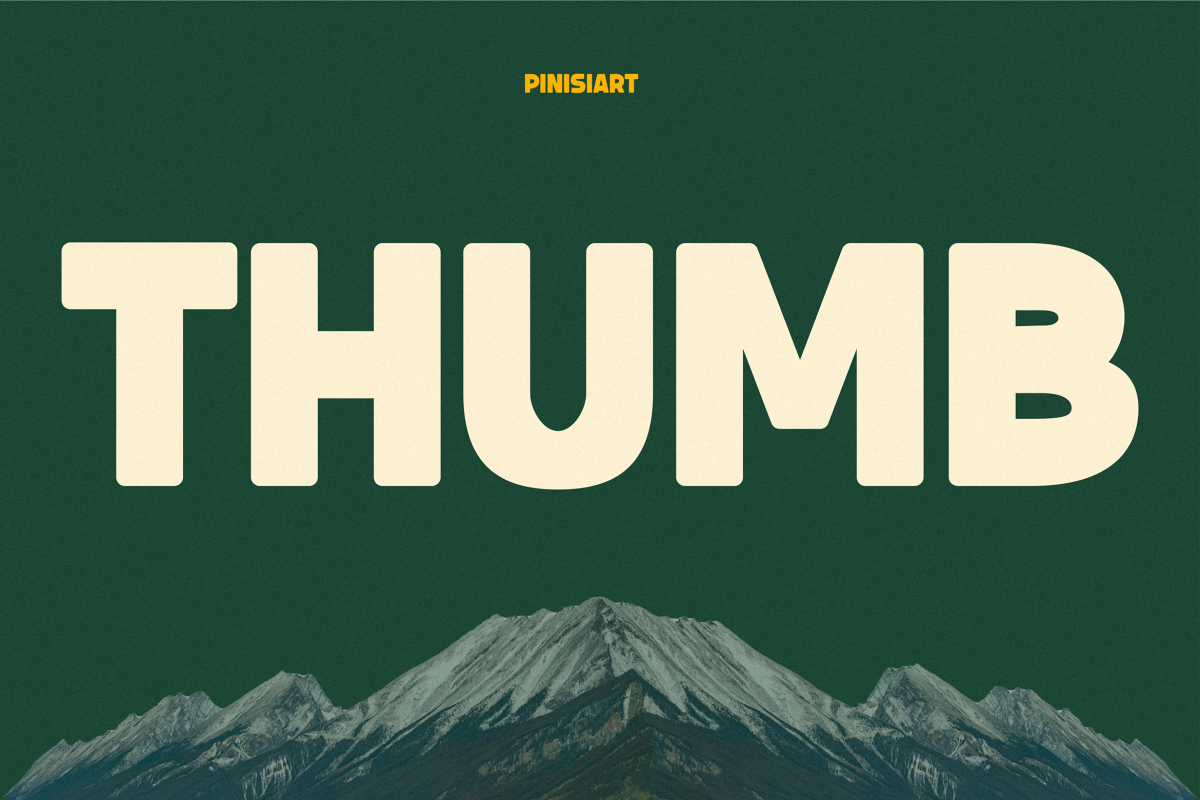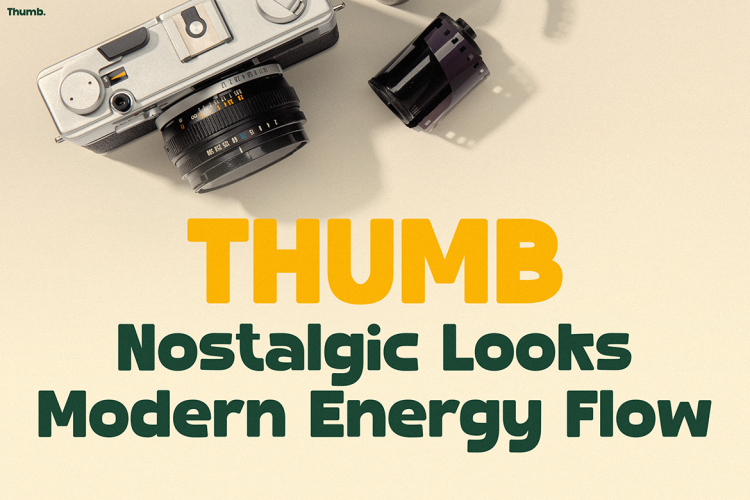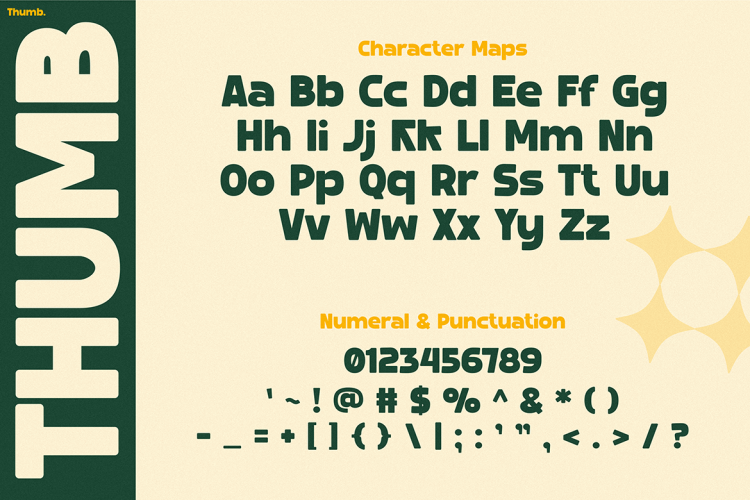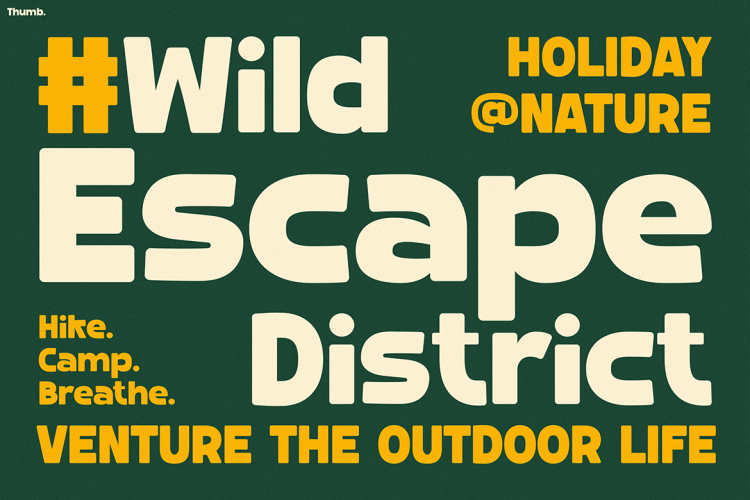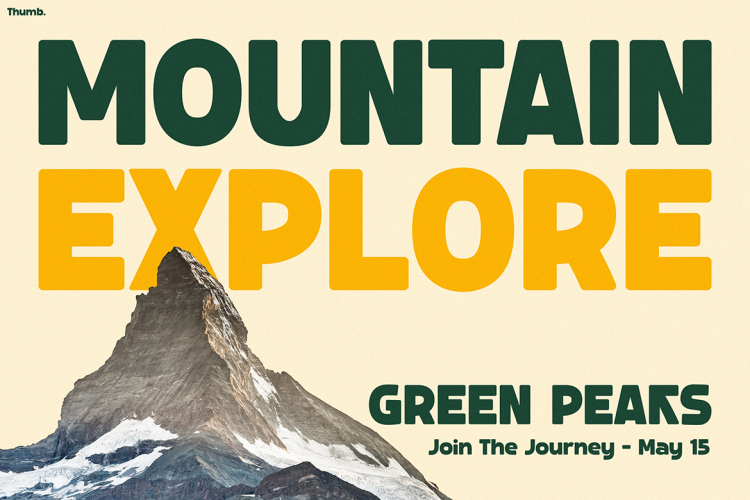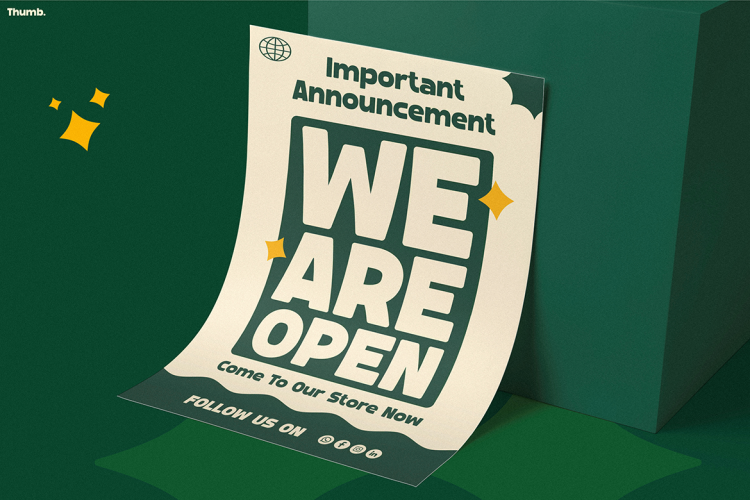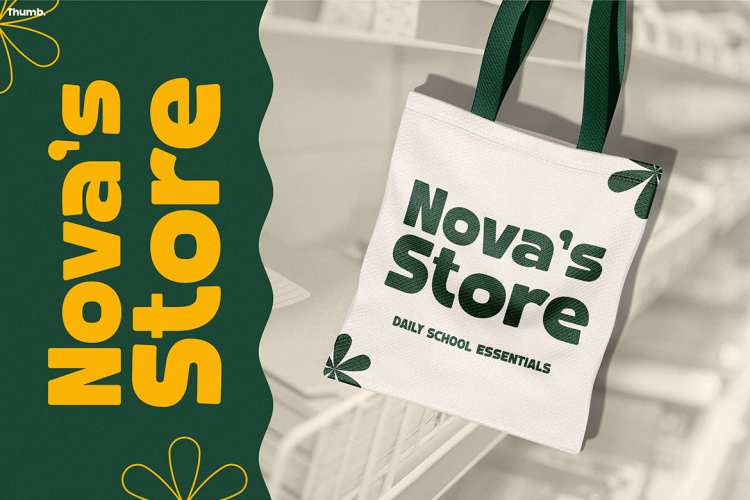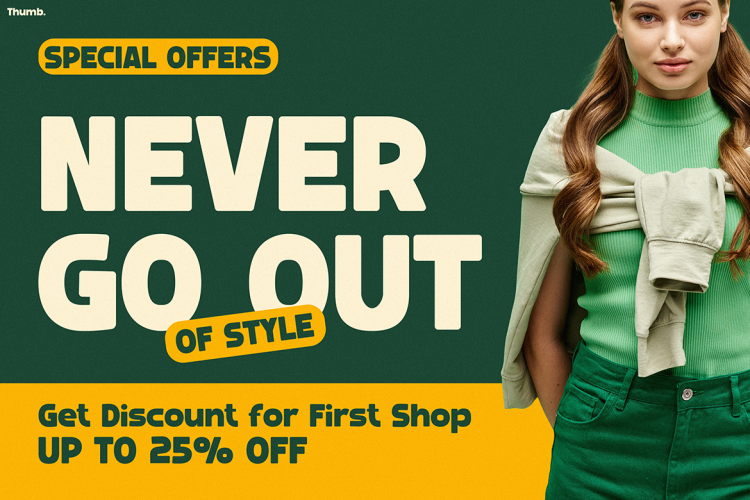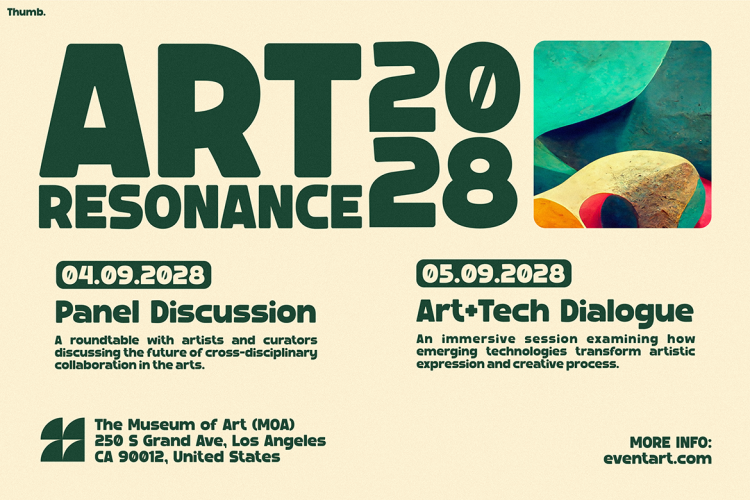
Retro Font THUMB โ Bold Nostalgia, Modern Creative Energy
Retro Font THUMB celebrates the beauty of bold nostalgia and modern creativity in one stunning typeface. Inspired by vintage posters and 70s design energy, this font turns every word into a statement full of warmth and personality. Its lively letterforms bring out the charm of old-school aesthetics while maintaining the clarity and precision that modern designs demand.
Every curve and angle of Retro Font THUMB reflects a perfect balance between geometric strength and playful expression. The thick, rounded shapes radiate confidence, while the smooth flow keeps your text friendly and approachable. Moreover, the designโs visual rhythm helps your message capture attention instantly. Whether you create logos, posters, or brand headlines, this font makes your words stand out beautifully.
In addition,THUMB offers excellent readability across sizes and mediums. It performs equally well in digital and print formats, ensuring your visuals remain consistent and impactful. Use it to build designs that feel authentic, energetic, and full of retro charm.
Retro Font THUMB suits designers, business owners, and creative professionals who love expressive and nostalgic typography. It fits perfectly in lifestyle branding, fashion packaging, cafรฉ menus, and editorial design. If you want to blend vintage personality with modern appeal, this font helps you communicate your vision clearly and stylishly.
Furthermore, itโs a great companion for social media creators and art directors seeking a typeface that commands attention without losing warmth. Add it to posters, product tags, digital banners, and marketing campaigns to infuse your project with a strong, memorable vibe. As a result, your visuals feel dynamic, personal, and undeniably retro.